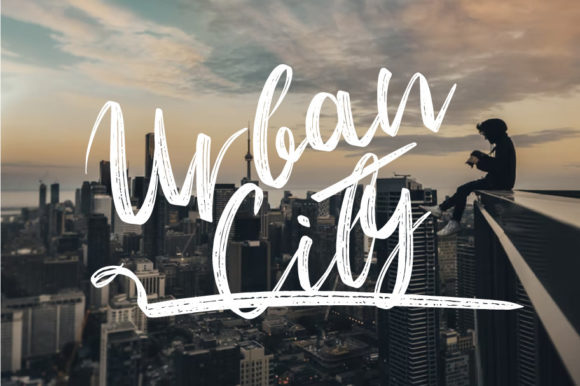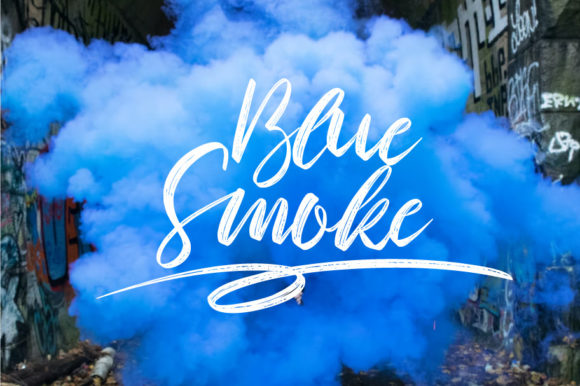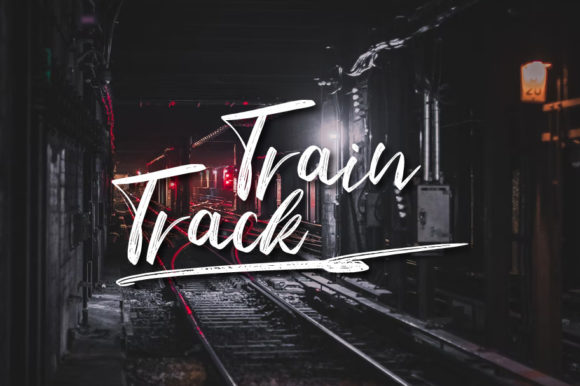
Introduction to Abon Font
Abon is a lovely brushed handwritten font.
It looks stunning on wedding invitations, thank you cards, quotes, greeting cards, logos, business cards and every other design which needs a customized touch This font is PUA encoded which means you can access all of the glyphs and swashes with ease.